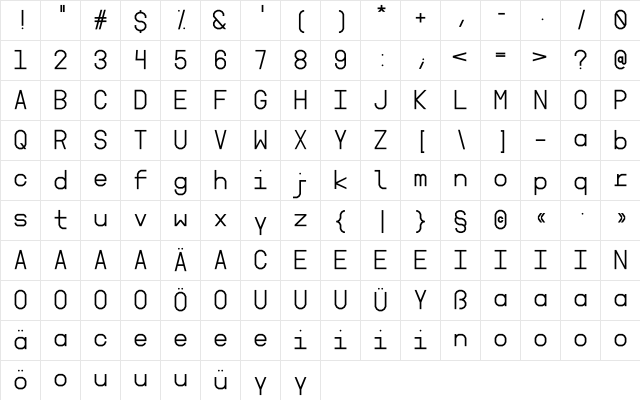
AO Mono Regular Free Font
AO Mono Regular
Foundry: Atelier Olschinsky
Designer: Peter Olschinsky
Design Context for AO Mono
AO Mono uses fixed-width spacing throughout, giving it the structured, systematic character associated with coding environments and technical documentation.